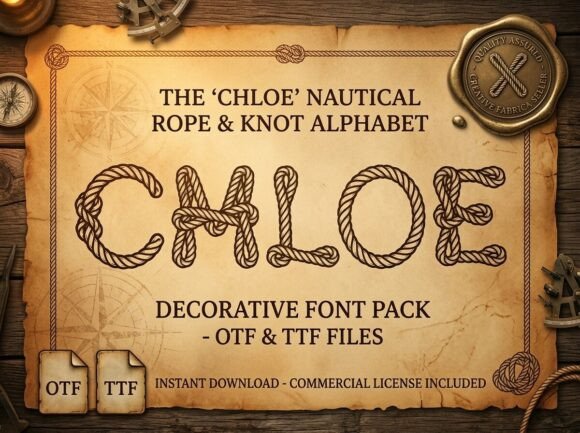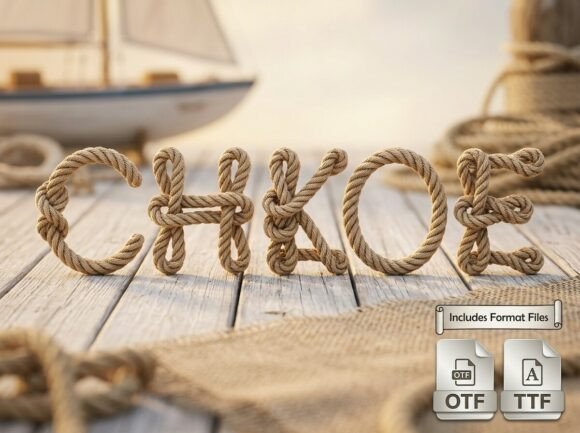
Introducing Chloe Font: The Ultimate Decorative Display Font
Are you tired of using the same old fonts for your creative projects? Look no further than Chloe Font, a stunning decorative display font designed to be the center of attention. With its unique artistic elements and strong visual personality, this font is perfect for creators who want to break away from the ordinary and make a statement.
What Makes Chloe Font Special?
Chloe Font is a versatile decorative font that is perfect for bold headlines, artistic logos, and creative packaging. Its unique design ensures that it maintains a professional and polished finish, making it suitable for a wide range of applications. Whether you’re a designer, crafty DIY enthusiast, or entrepreneur, this font is sure to elevate your creative projects to the next level.
Key Features of Chloe Font
- Unique Artistic Elements: Chloe Font features intricate and artistic elements that set it apart from other fonts. Each letter is carefully crafted to make a statement and grab attention.
- Strong Visual Personality: This font has a strong visual personality that is sure to make your creative projects stand out. Its bold and eye-catching design ensures that your message is conveyed with impact.
- Versatile: Chloe Font is versatile enough for use in a variety of applications, including bold headlines, artistic logos, and creative packaging.
- Professional and Polished Finish: Despite its bold and artistic design, Chloe Font maintains a professional and polished finish, making it suitable for use in a wide range of creative projects.
Why Choose Chloe Font?
There are many reasons why Chloe Font is the perfect choice for your creative projects. Here are just a few:
- Make a Statement: With its bold and eye-catching design, Chloe Font is sure to make a statement and grab attention.
- Stand Out from the Crowd: This font is unique and artistic, ensuring that your creative projects stand out from the crowd.
- Professional Quality: Despite its bold design, Chloe Font maintains a professional and polished finish, making it suitable for use in a wide range of creative projects.
How to Use Chloe Font
Chloe Font is easy to use and can be applied to a wide range of creative projects. Here are just a few ideas to get you started:
- Headlines and Titles: Use Chloe Font to create bold and eye-catching headlines and titles for your blog posts, articles, and other written content.
- Logos and Branding: This font is perfect for creating artistic logos and branding materials that make a statement and grab attention.
- Packaging and Product Design: Use Chloe Font to create creative and eye-catching packaging and product designs that stand out from the crowd.